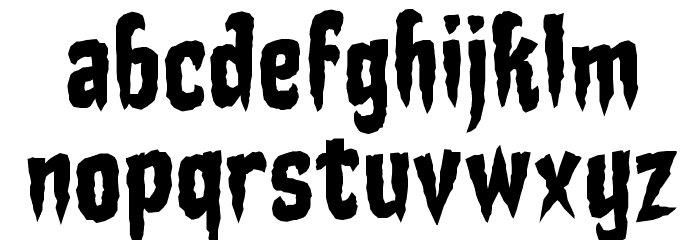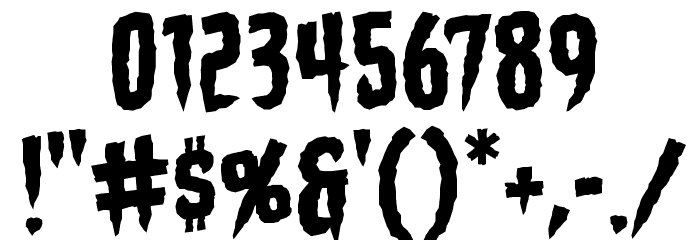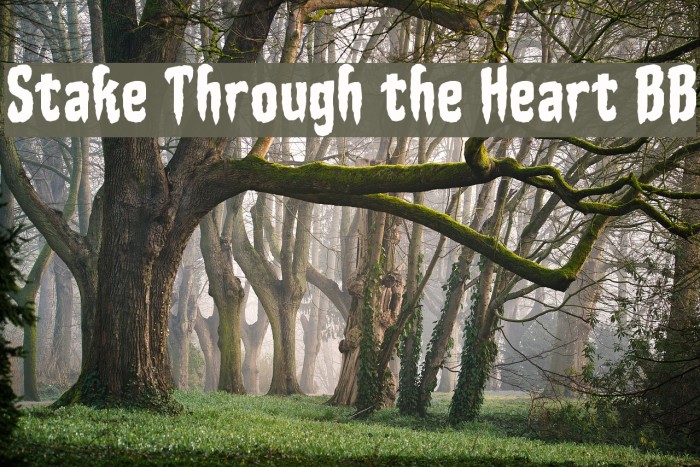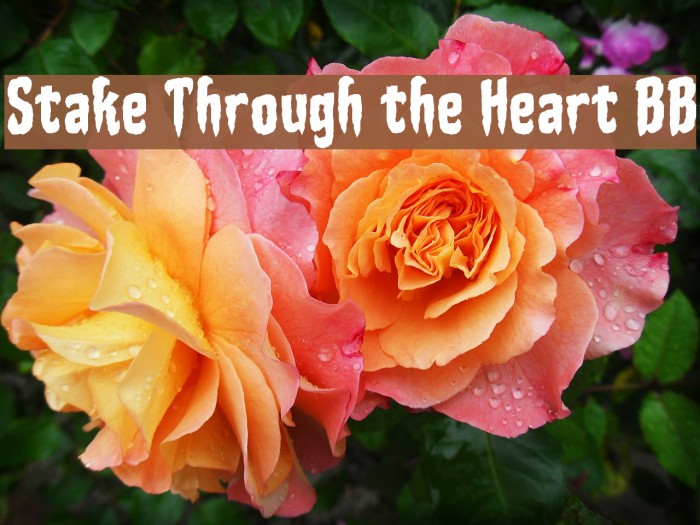
Stake Through the Heart BB Font
This font features a bold and jagged design, reminiscent of horror or thriller themes. The characters have an irregular, hand-drawn appearance with sharp, pointed edges that evoke a sense of danger or urgency. The uppercase and lowercase letters maintain a consistent style, with the uppercase being slightly more pronounced. Numbers and special characters follow the same aesthetic, ensuring a cohesive look across all text. The overall design is striking and attention-grabbing, making it ideal for projects that require a dramatic or eerie touch.
A bold, jagged font with a horror-inspired, hand-drawn style.
- Proposed Projects: Ideal for Halloween-themed designs, horror movie posters, spooky invitations, and any project needing a dramatic flair.
- Use Case: Headlines, Posters, Themed Events